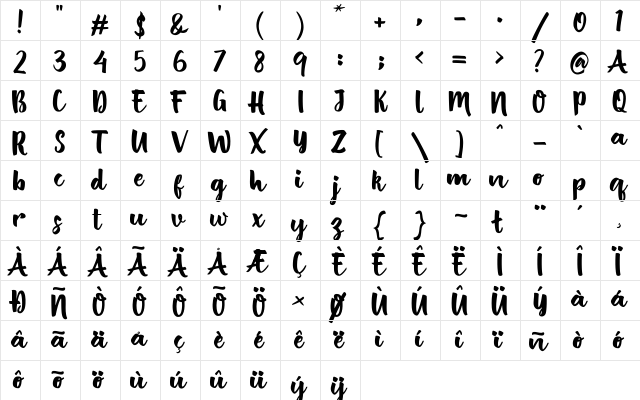
British Script Regular
Design Context for British Script Typeface
British Script flows with the natural rhythm of handwritten lettering, making it ideal for designs that call for warmth and personal expression.
Font Pairing: Combine British Script with a simple geometric sans for maximum contrast — the tension between flowing curves and clean structure is a classic typographic pairing.
Pro Tip: Use British Script for short runs of text — names, titles, or taglines. Extended body copy in script faces tires the eye quickly.